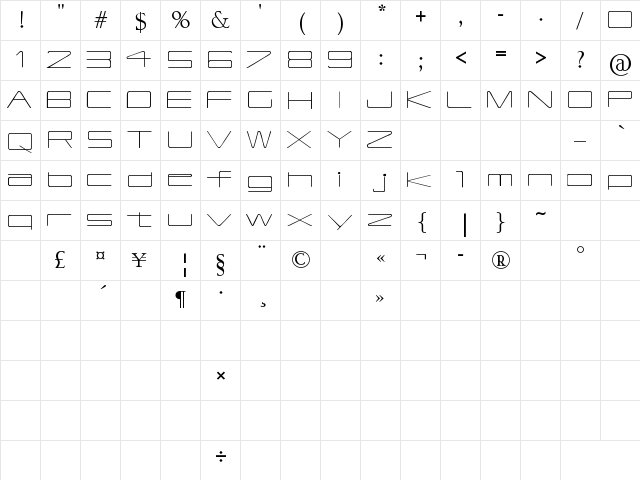
royal sterling 53 Regular
Design Context for royal sterling 53 Typeface
royal sterling 53 offers clean, dependable letterforms without strong stylistic allegiance, making it a practical choice for designers who need flexibility.